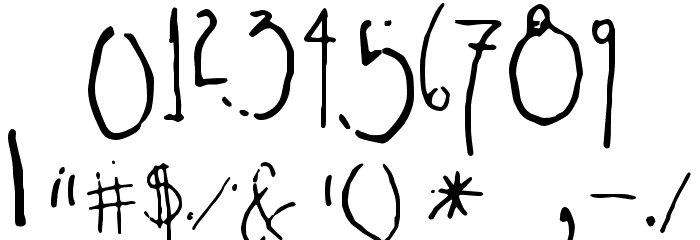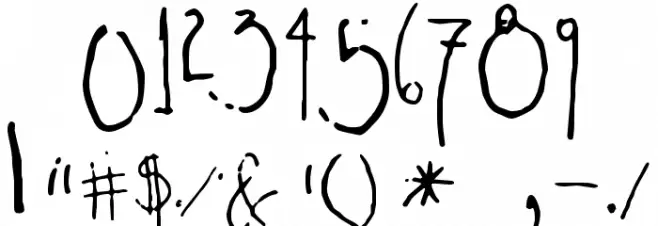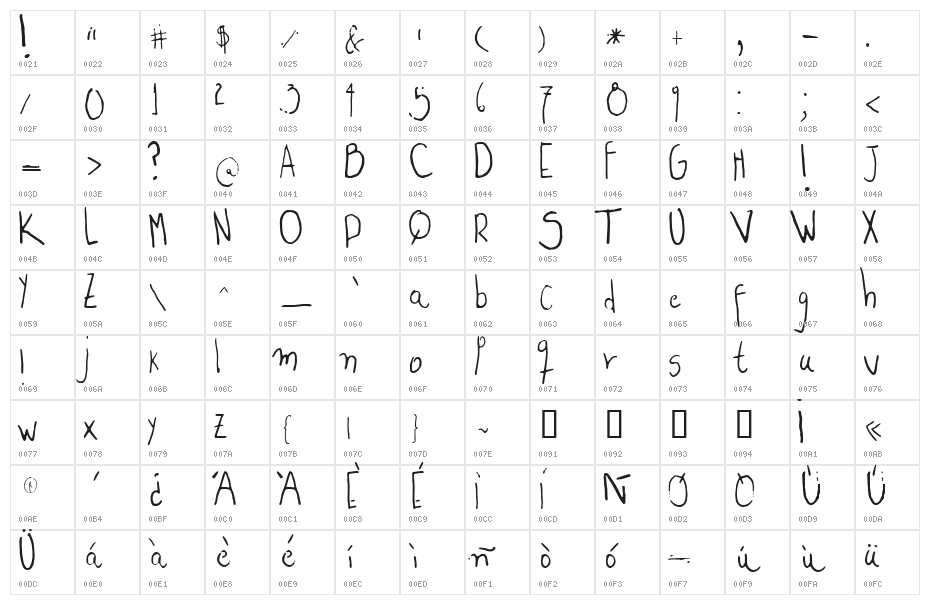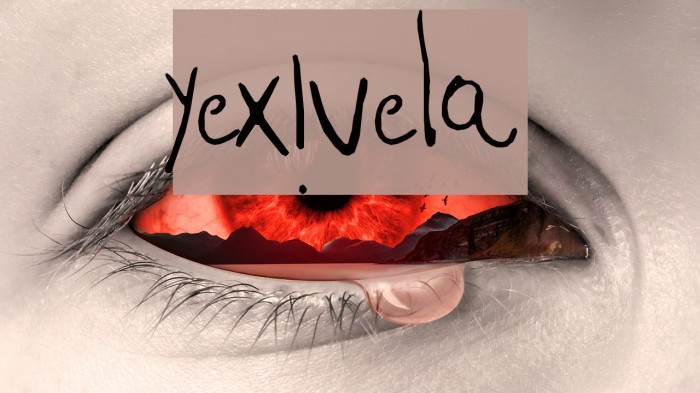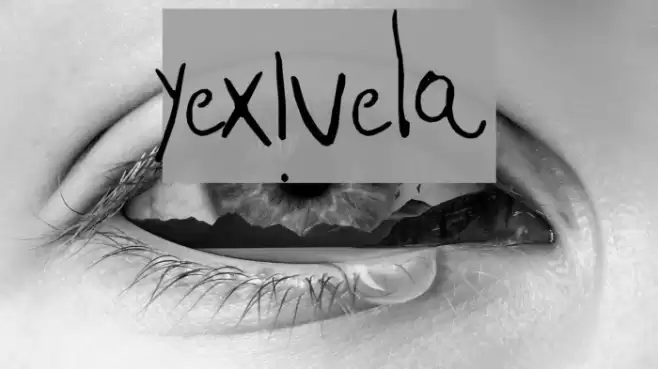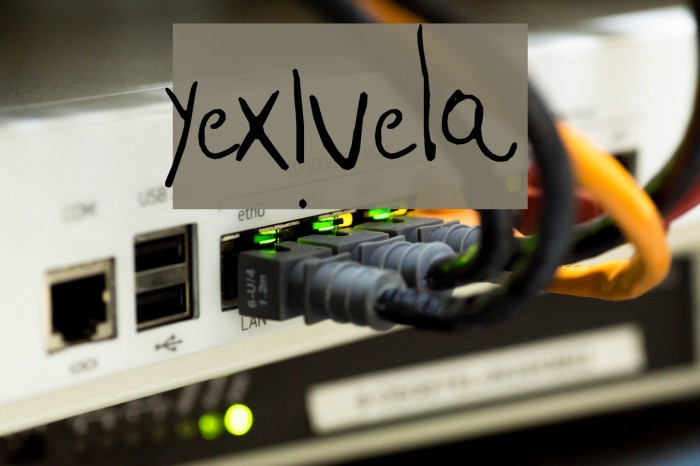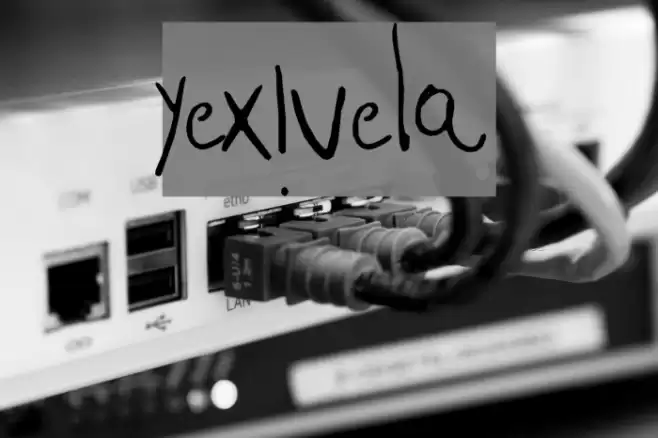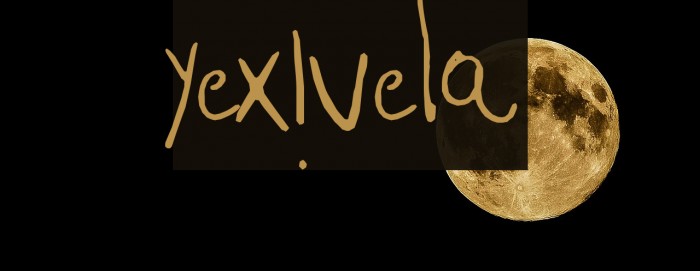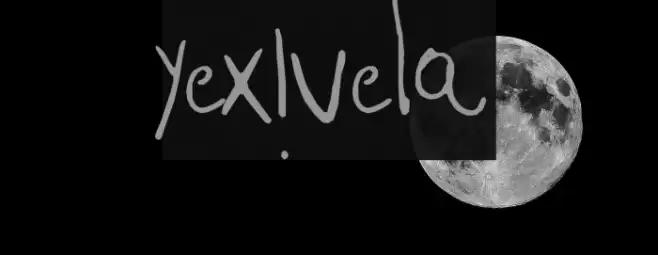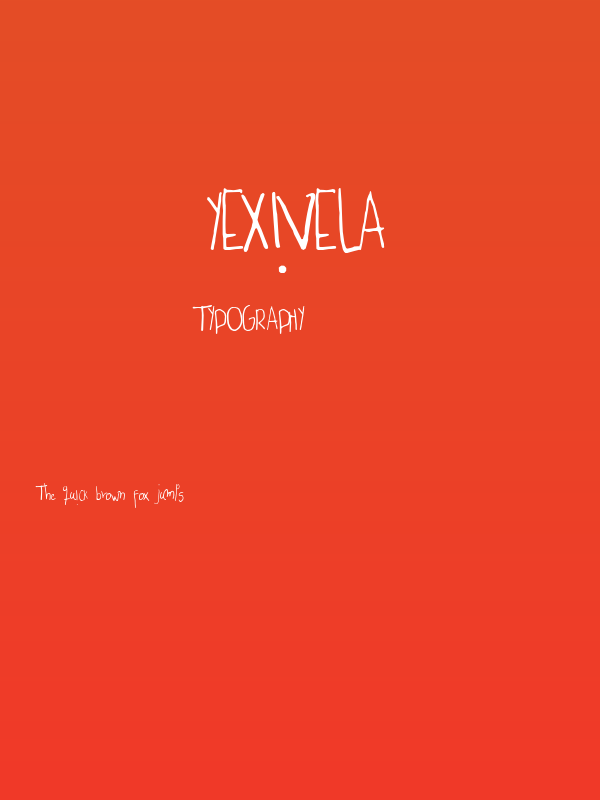
yexivela Font
yexivela Description
This font features a playful and informal handwritten style, characterized by its irregular and organic letterforms. The strokes are uneven, giving it a casual and spontaneous appearance. The uppercase letters are tall and narrow, while the lowercase letters maintain a consistent flow with varying heights. Numbers and special characters follow the same whimsical style, adding to the font's unique charm. The overall look is reminiscent of a personal note or doodle, making it ideal for projects that require a touch of personality and creativity.
| Use Case | Logos, Invitations, Creative projects |
| Proposed Projects | Ideal for greeting cards, children's books, casual invitations, and creative branding. |